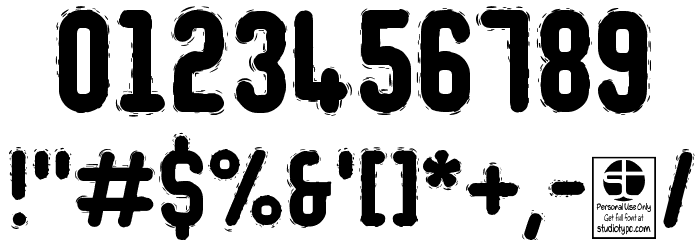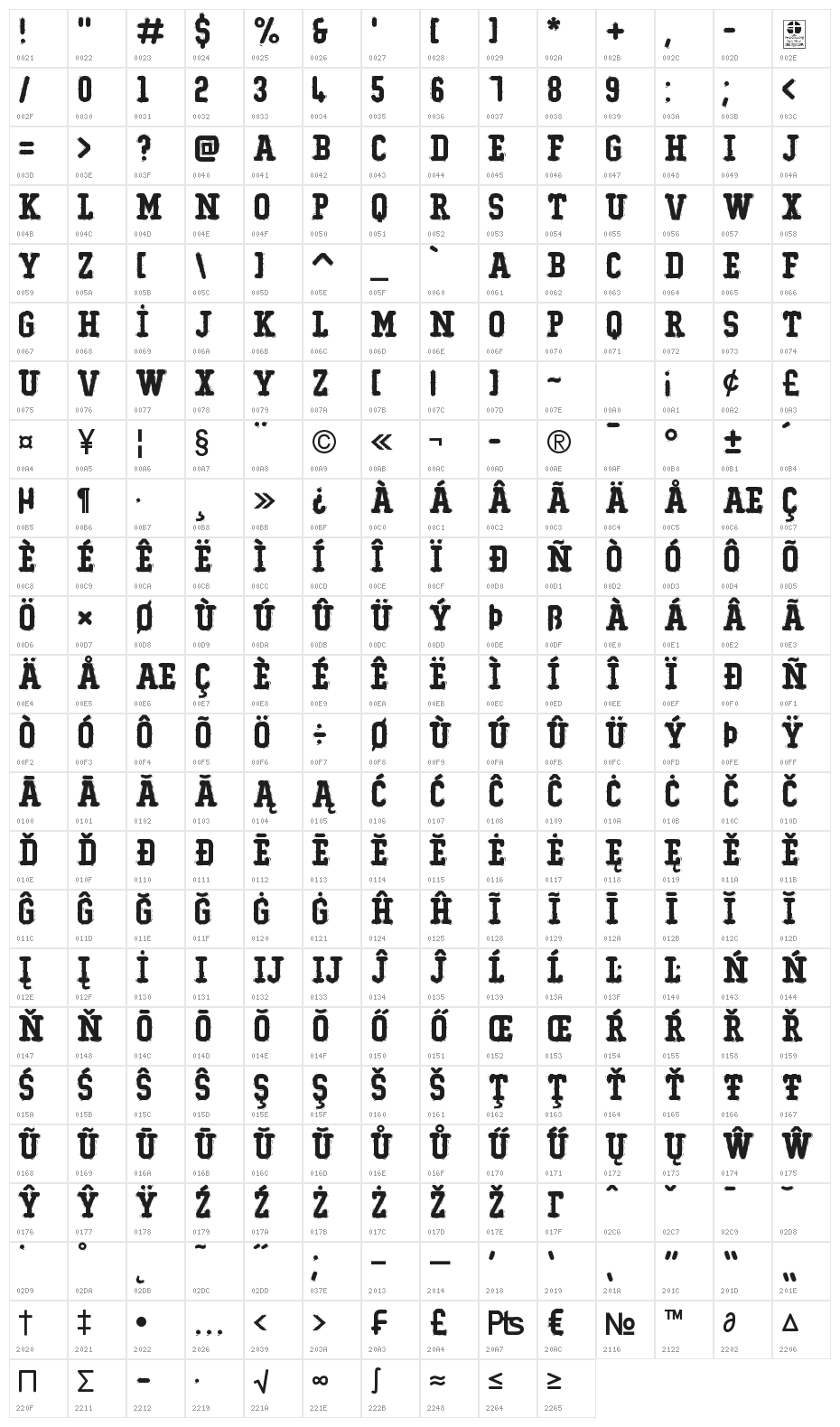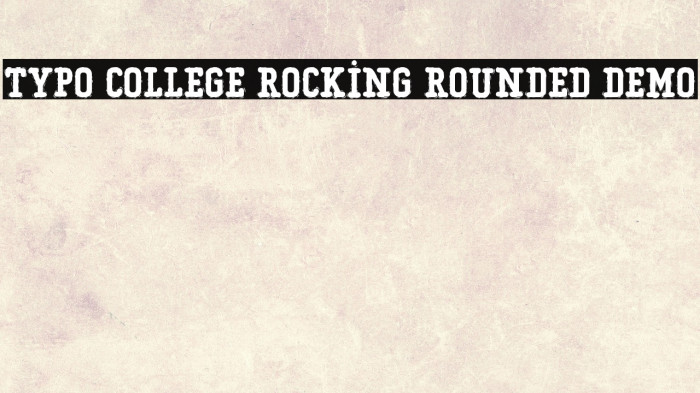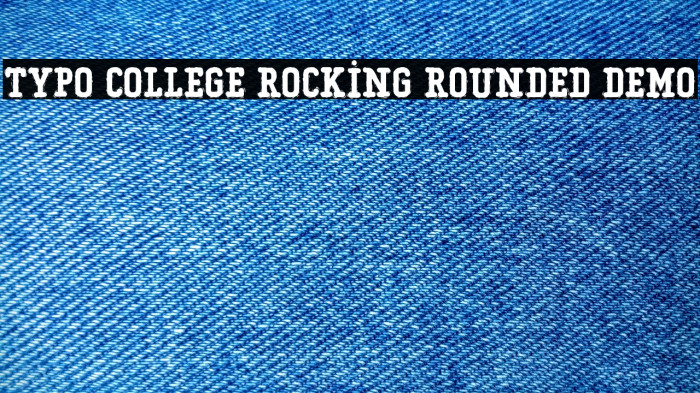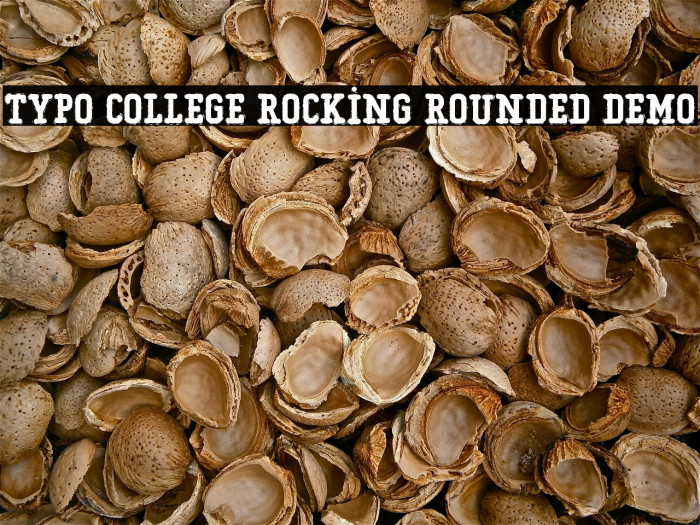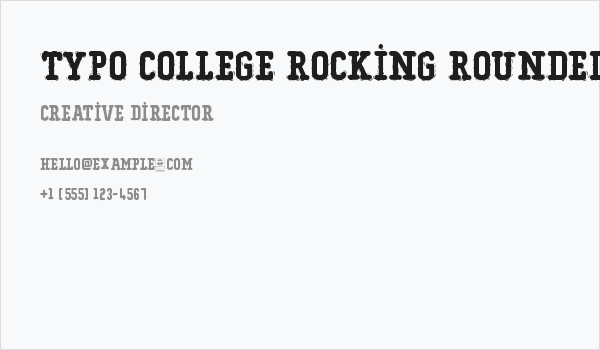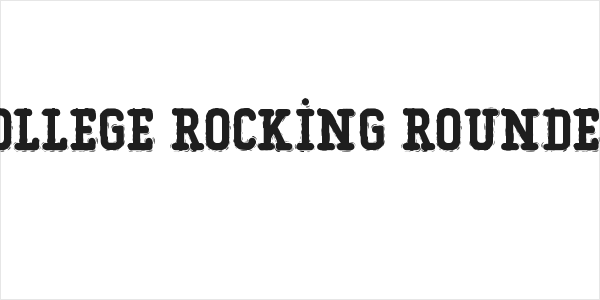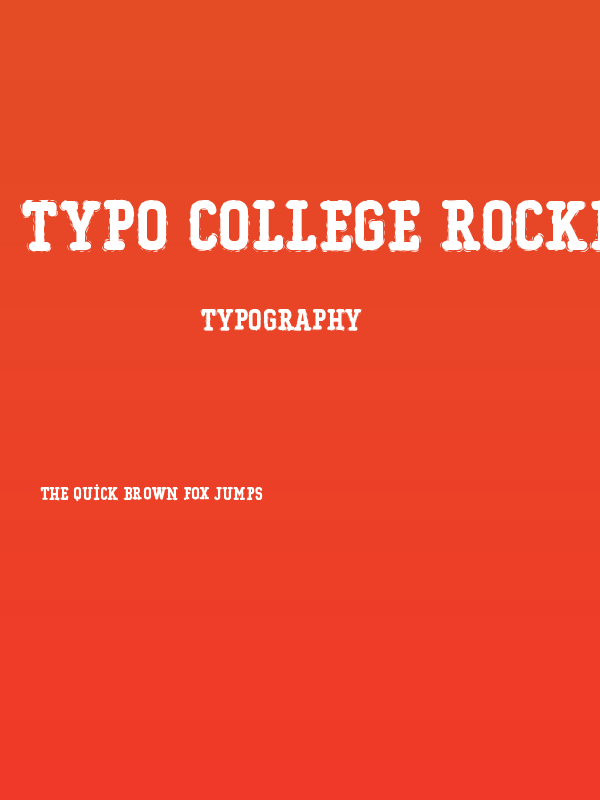
Typo College Rocking Rounded Demo Font
Typo College Rocking Rounded Demo Description
This font features a bold, rugged style with a distressed texture that gives it a vintage, worn look. The characters are rounded and have a substantial weight, making them stand out prominently. The uppercase and lowercase letters maintain a consistent style, with the uppercase being slightly more pronounced. The numerals and special characters follow the same design, ensuring uniformity across all glyphs. The font's unique appearance makes it ideal for projects that require a strong, impactful visual presence.
| Proposed Projects | Ideal for posters, album covers, branding, and any design needing a strong, vintage aesthetic. |